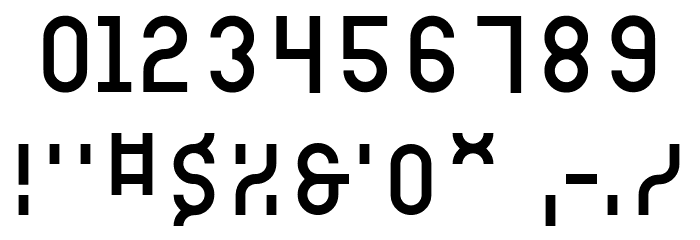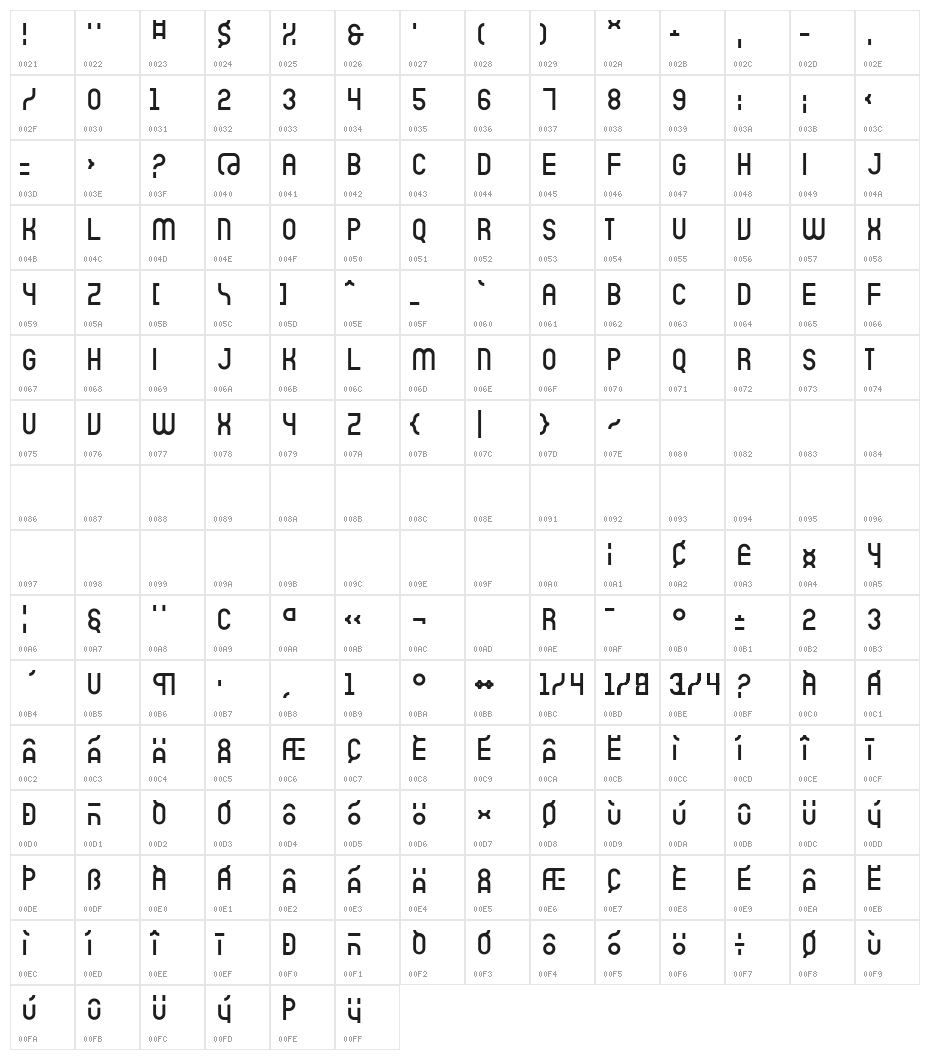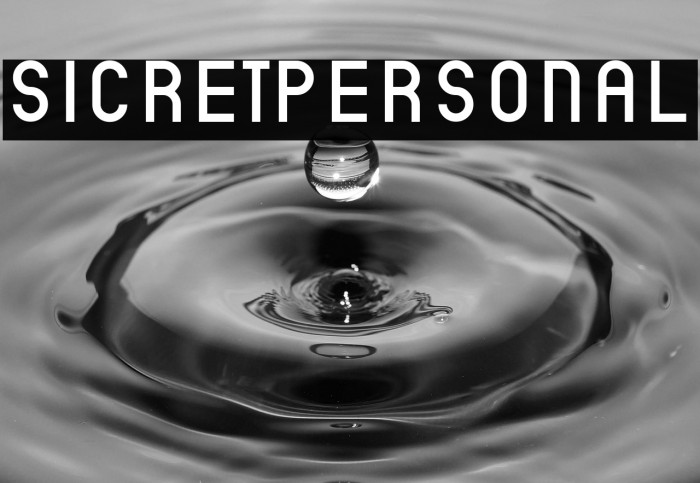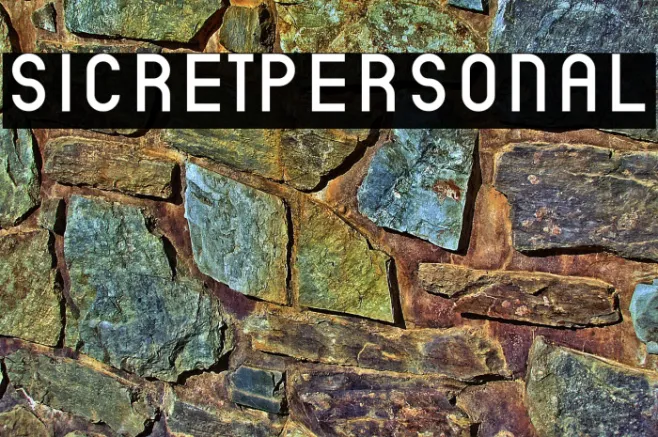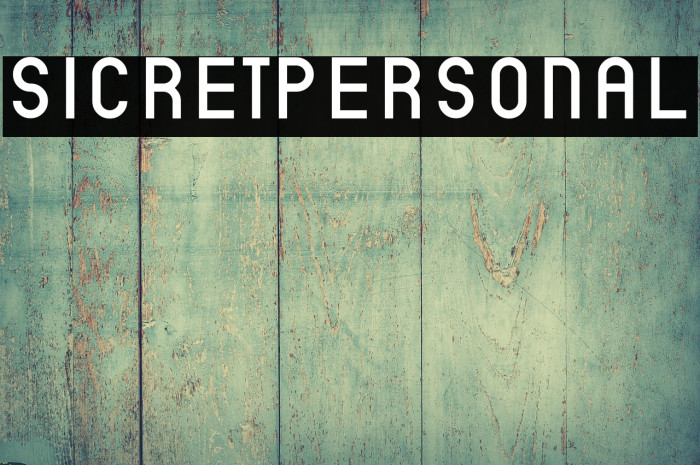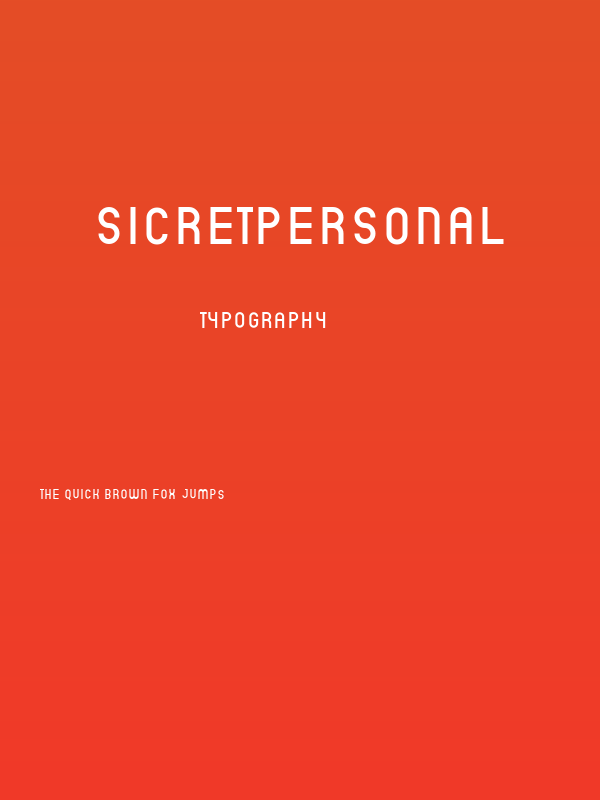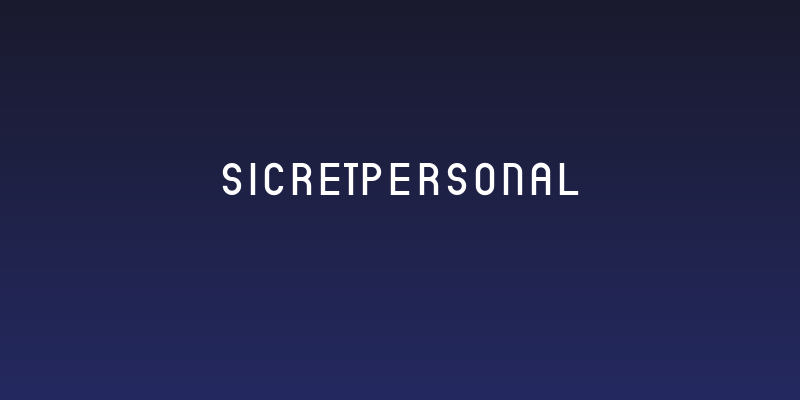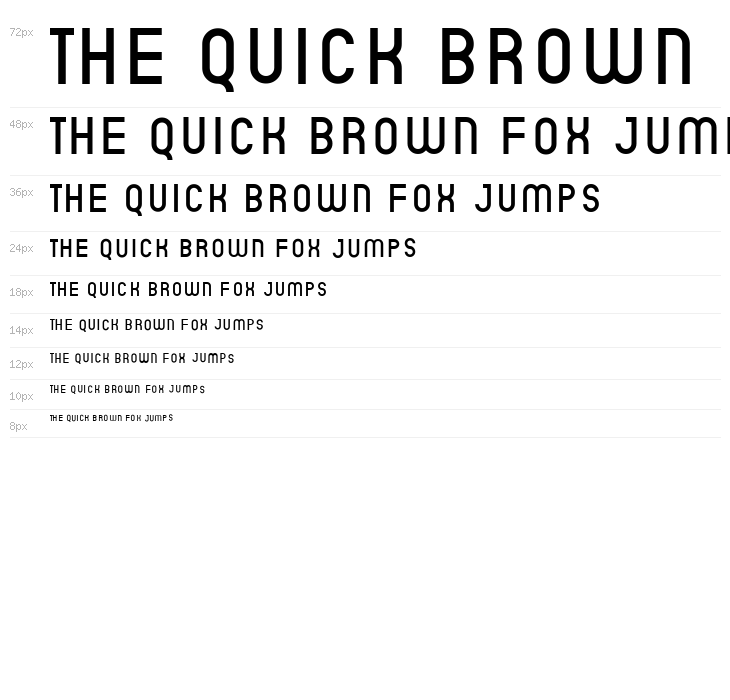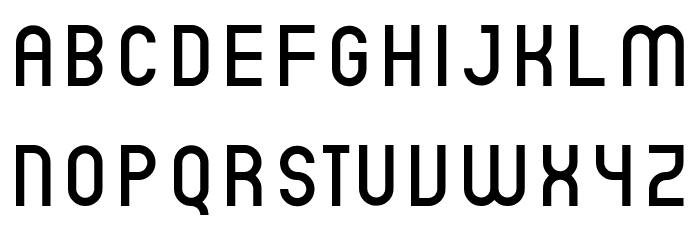
SicretPERSONAL Font
SicretPERSONAL Description
This font features a clean, geometric design with uniform stroke widths, giving it a modern and structured appearance. The characters are bold and slightly condensed, with rounded edges that soften the overall look. The uppercase and lowercase letters maintain a consistent style, enhancing readability. The numerals are clear and distinct, matching the letterforms in style and weight. Special characters are well-integrated, maintaining the font's cohesive aesthetic. This font's simplicity and clarity make it versatile for various design applications.
| Use Case | Headlines, Logos, Digital Interfaces |
| Proposed Projects | Ideal for branding, signage, digital interfaces, and editorial design where clarity and modernity are key. |